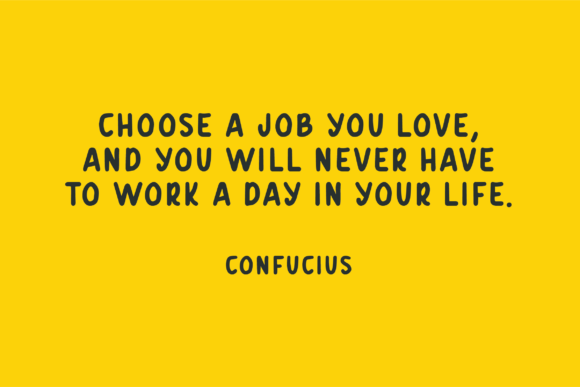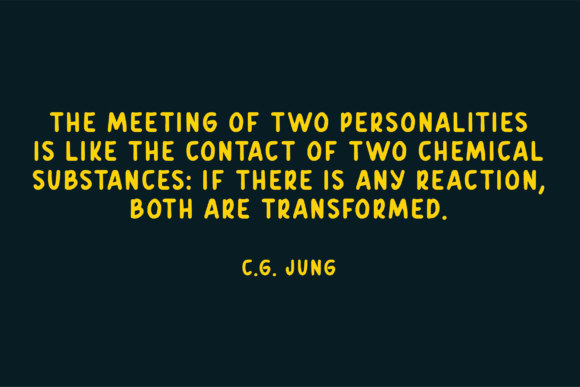
Lovely Doggy Font
db-ku.com - Script & Handwritten -- Lovely Doggy is a beautiful and attractive handwritten font. The curves in each arrangement make it look unique and natural. It also looks good when used as quotes, diaries, books, posters, and invitations.